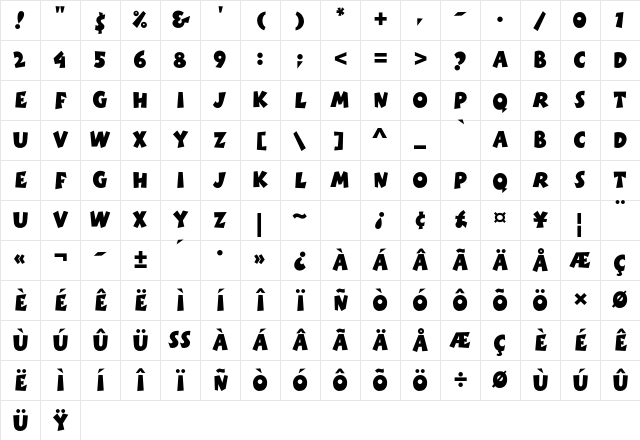
Complete Boink Std Regular glyph index. Displaying only characters natively supported by Boink Std Regular font.
Boink Std is a composed and adaptable typeface that performs quietly and consistently across a wide range of design contexts.